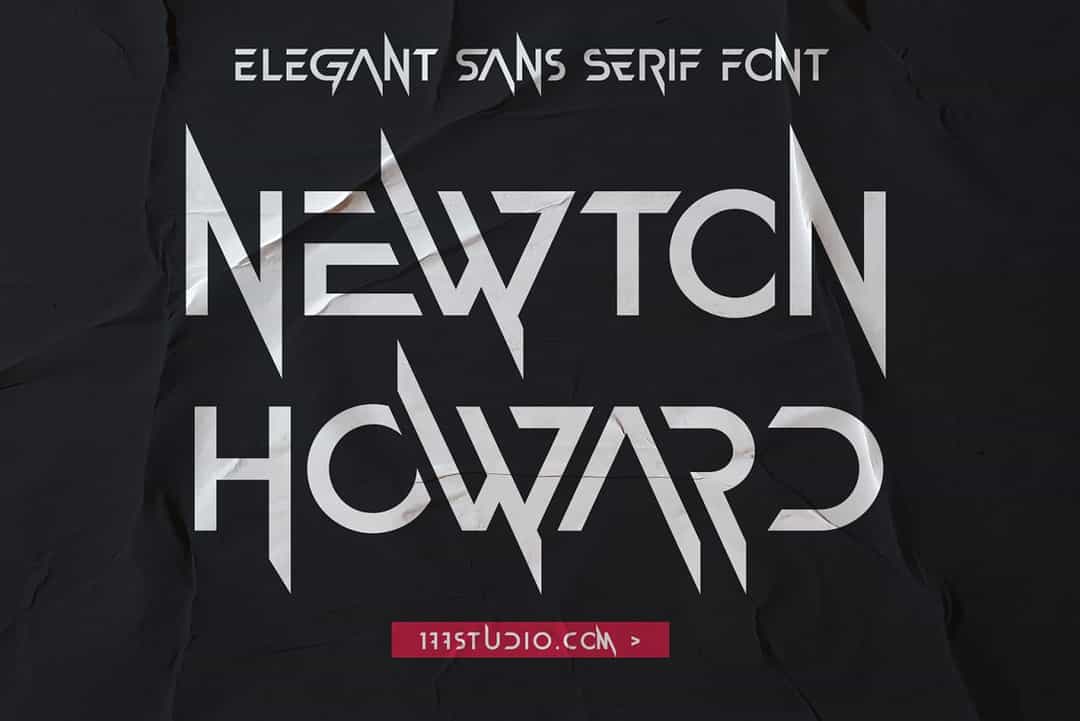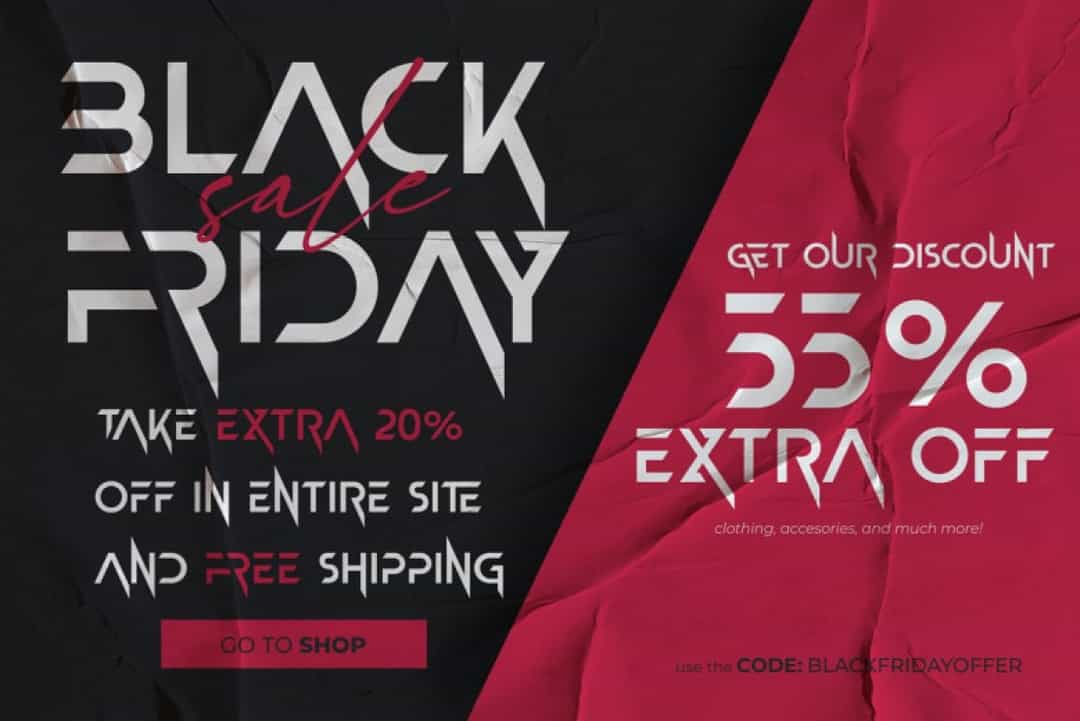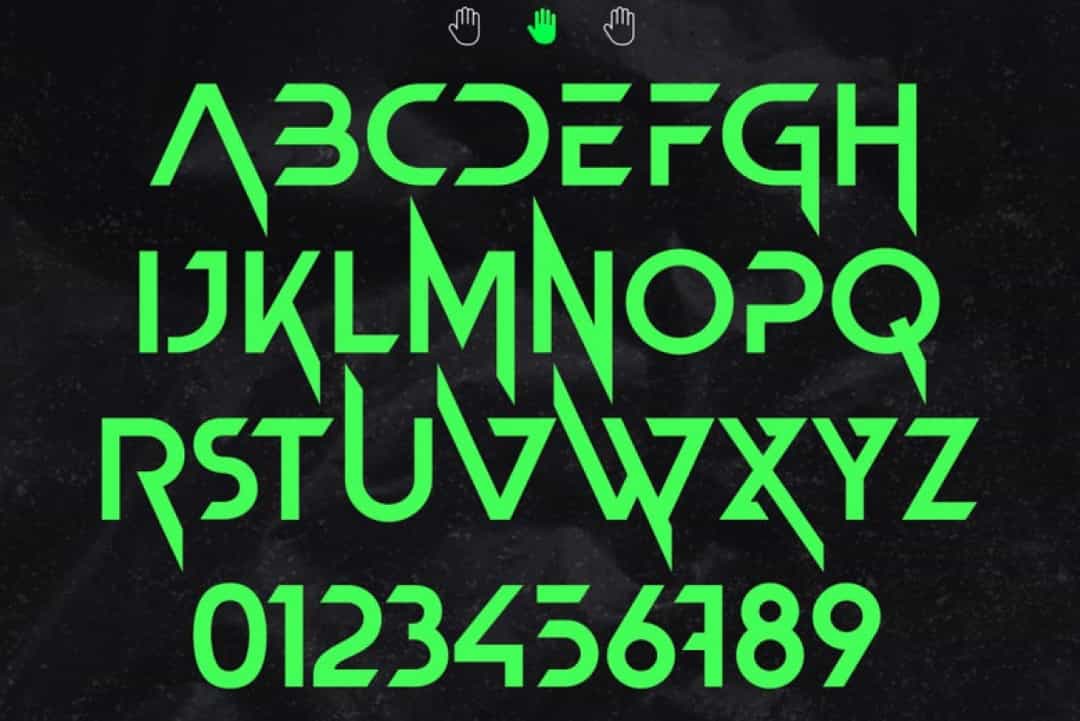
Newton Howard Sans Serif Font is a modern and futuristic font. This font features futuristic edges and geometric corners suited for technology-themed themes, ideal for packaging designs, web sites, logo designs and packaging projects. Additionally, its Open Type features make this font perfect for packaging designs, logo designs and packaging projects alike.